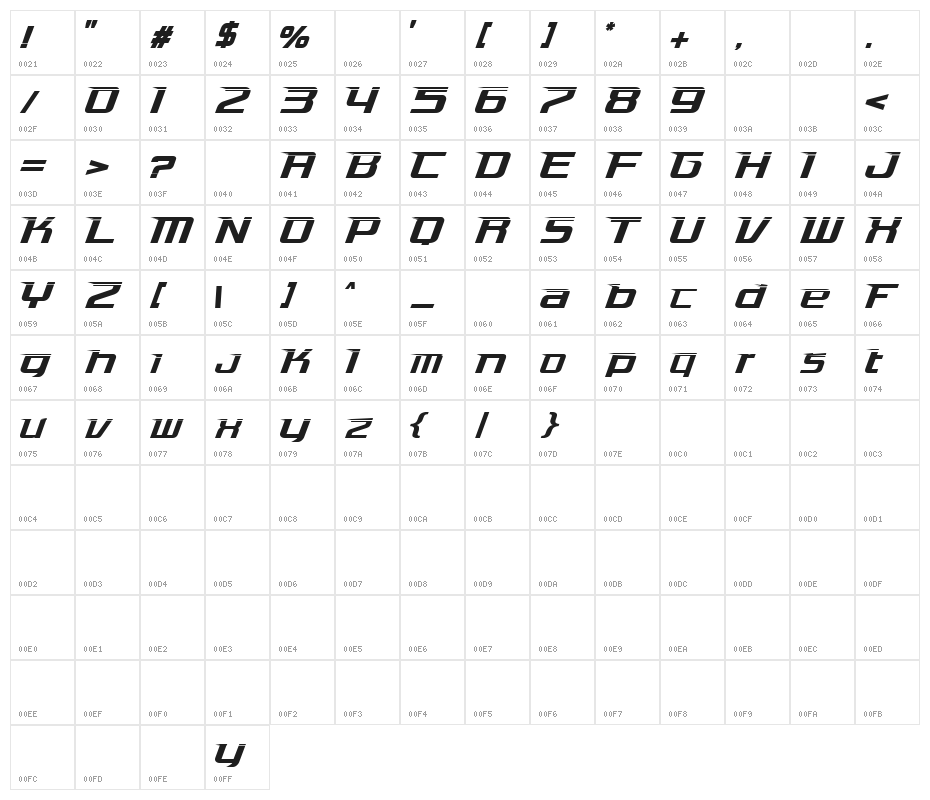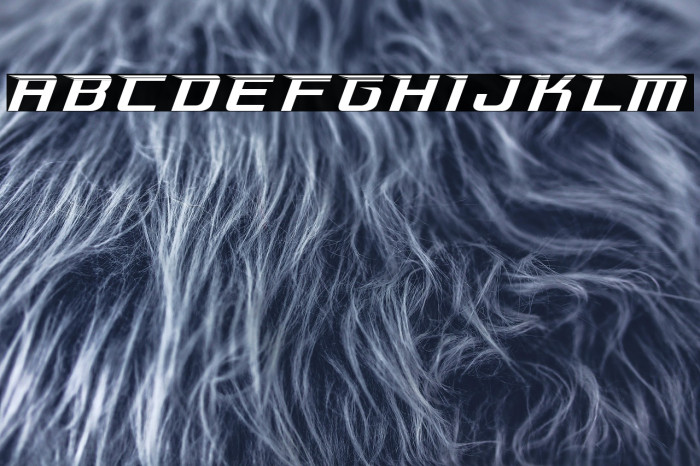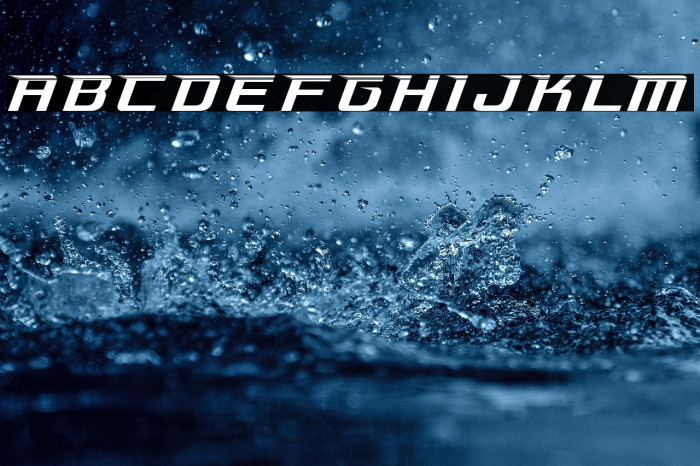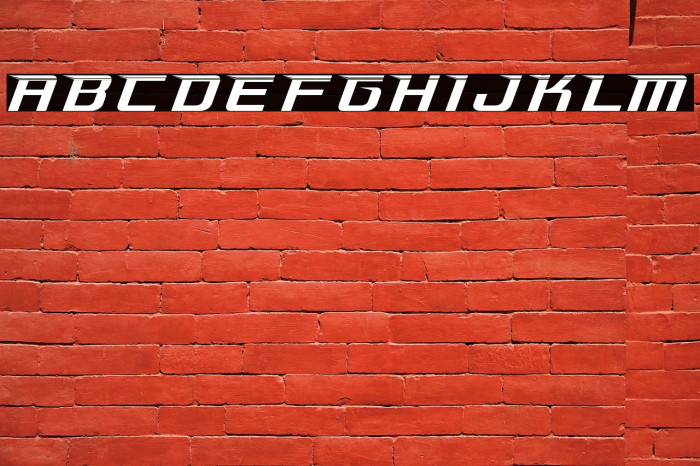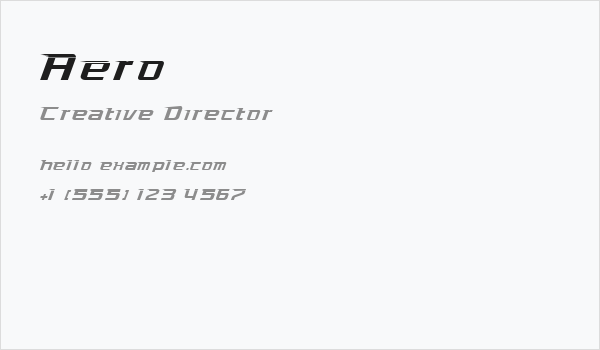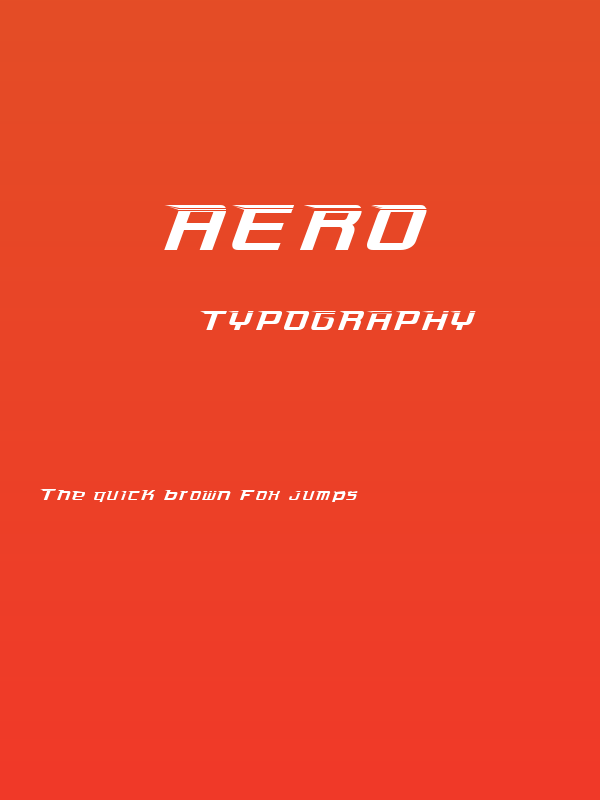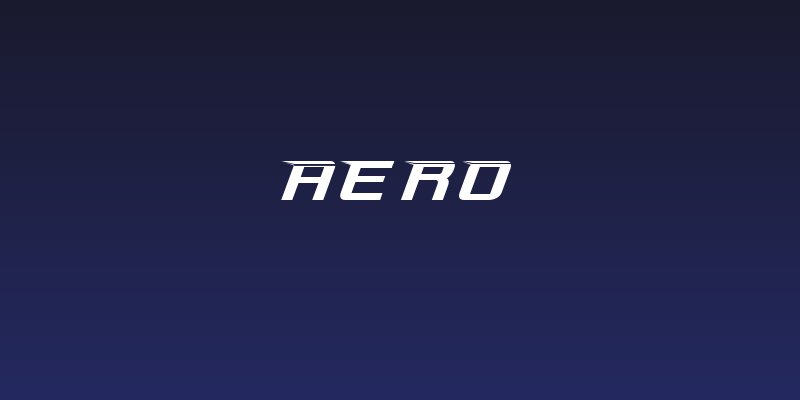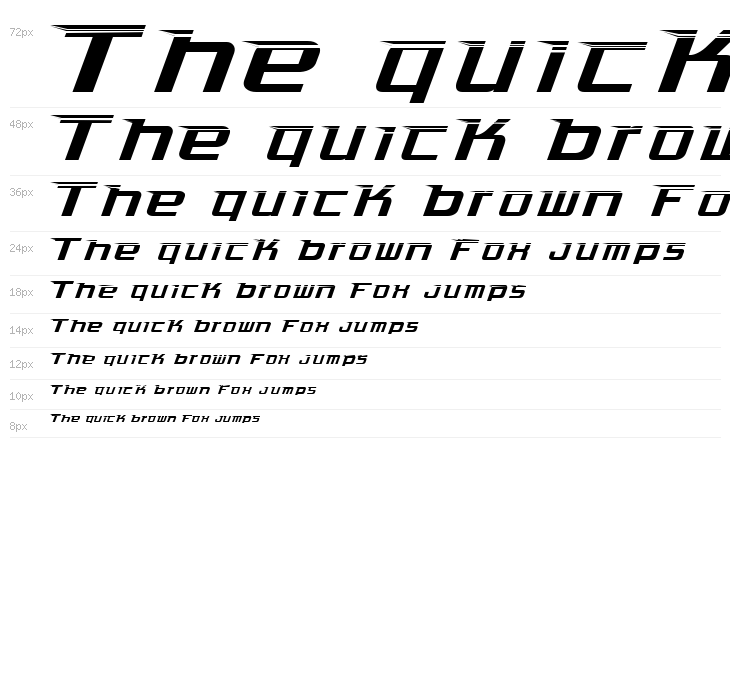
Aero Font
Aero Description
This font features a dynamic and futuristic style with sharp, angular edges and a forward-leaning slant, giving it a sense of motion and speed. The uppercase and lowercase letters maintain a consistent geometric structure, while the numerals and special characters complement the overall design with similar angular cuts. The font's unique aesthetic is enhanced by its bold weight and medium contrast, making it stand out in any application. The character spacing is slightly tight, which adds to its compact and cohesive appearance. This font is ideal for projects that require a modern and edgy look, such as technology branding, sports team logos, or sci-fi themed designs.
Overall StyleFuturistic
Use CaseLogos, Headlines
Proposed ProjectsTechnology branding, sports team logos, sci-fi themed designs.